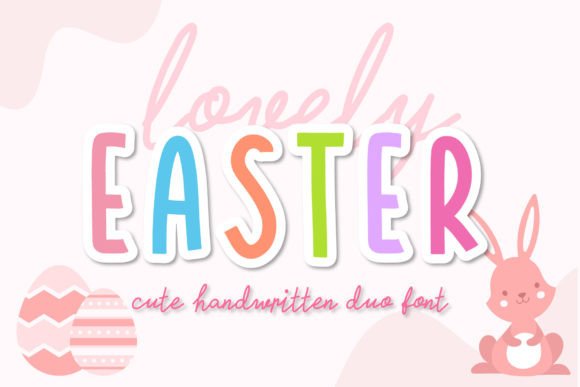
Introducing Lovely Easter Font, the perfect script font for all your heartfelt messages and delightful designs! Created by the talented AquariiD, this font is a captivating blend of quirkiness and sweetness that is sure to captivate your audience.
Whether you're looking to create a stunning logo, establish a memorable brand identity, design eye-catching invitations, or craft heartfelt cards, Lovely Easter Font has got you covered. Its elegant and playful strokes add a touch of charm to any project, making it ideal for weddings, celebrations, and special occasions.
With Lovely Easter Font, your words will come to life like never before. Its unique script style exudes warmth and sincerity, making it the perfect choice for expressing heartfelt apologies, tender sentiments, and heartfelt gratitude.
Embrace the power of Lovely Easter Font to elevate your social media presence. Craft captivating posts that leave a lasting impression on your followers. From inspiring quotes to engaging captions, this font will breathe life into your content, creating a visual experience that resonates with your audience.
But it doesn't stop there. Lovely Easter Font is not only visually appealing but also incredibly versatile. Its extensive character set includes a wide range of special characters, ligatures, and alternates, allowing you to unleash your creativity and customize your designs to perfection.
Let your imagination run wild as you explore the endless possibilities that Lovely Easter Font offers. Whether you're a seasoned designer or just starting out, this font is easy to use and compatible with various design software, ensuring a seamless and hassle-free experience.
But don't just take our word for it. Join the countless designers and creatives who have already fallen in love with Lovely Easter Font. Experience the joy of bringing your ideas to life with this captivating typeface.
So why wait? Dive into the world of Lovely Easter Font and let your designs bloom with creativity, authenticity, and a touch of whimsy. It's time to make a lasting impression with the best font for apology letters and beyond – Lovely Easter Font.